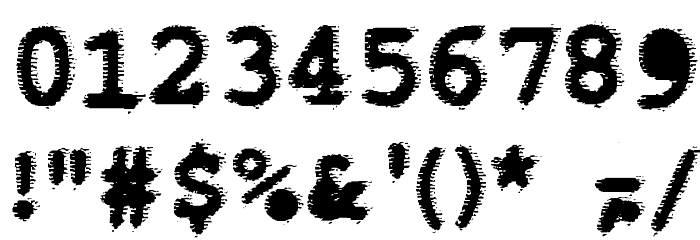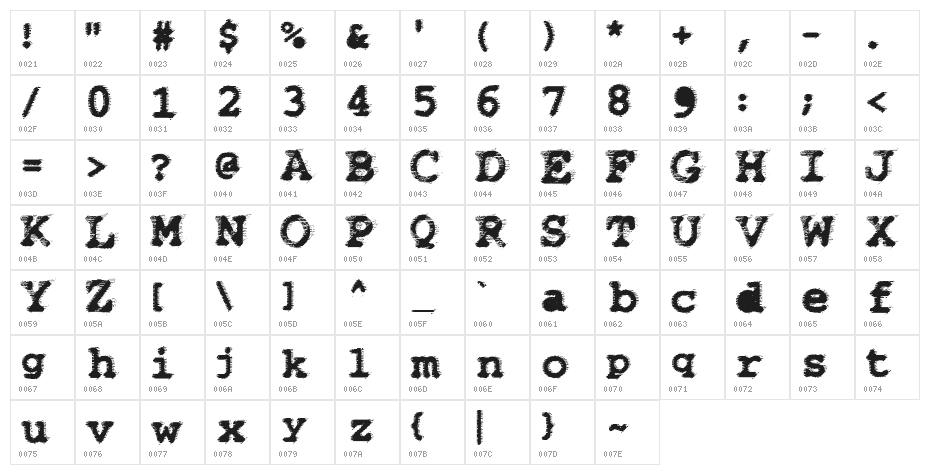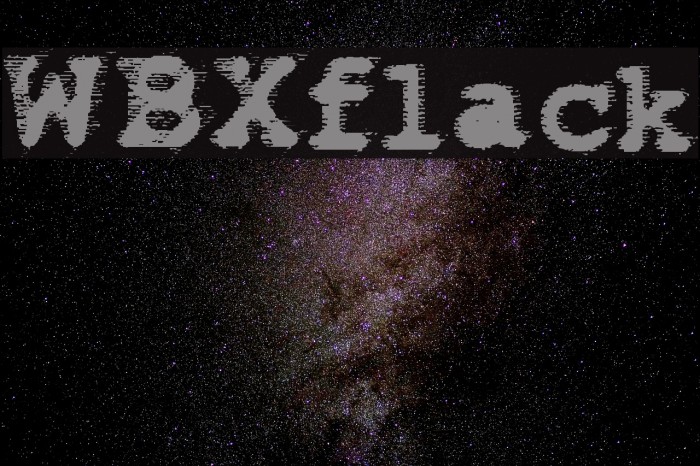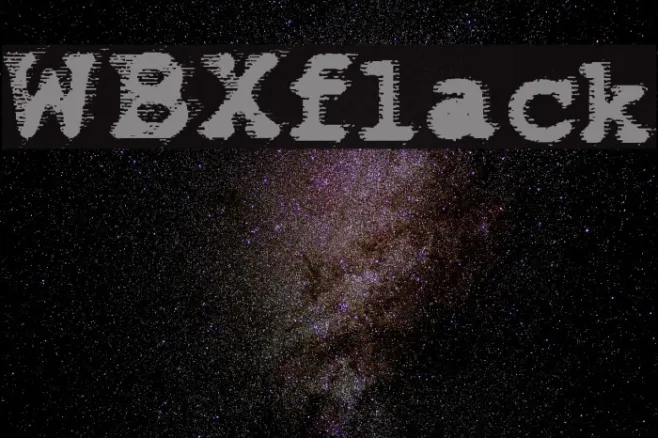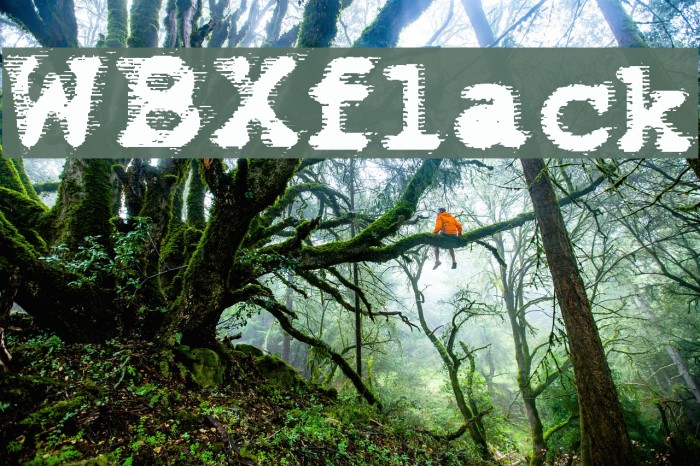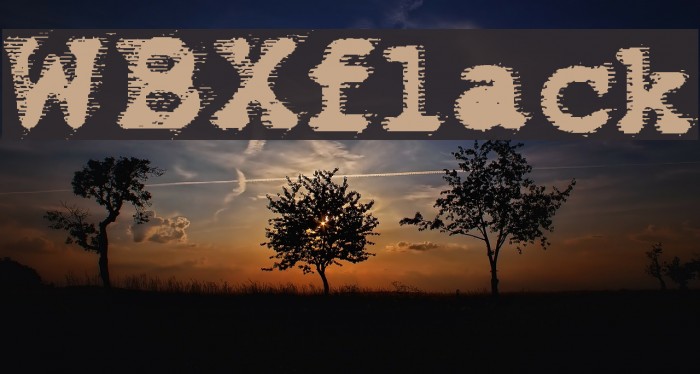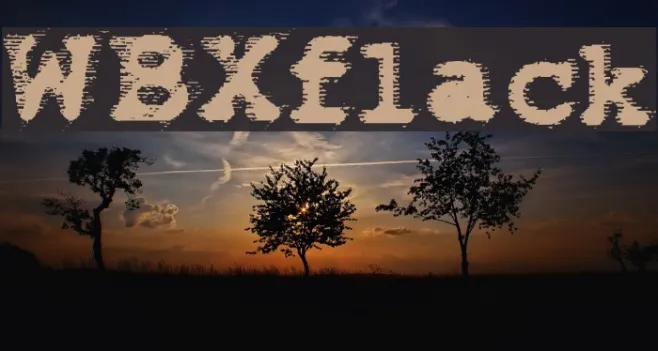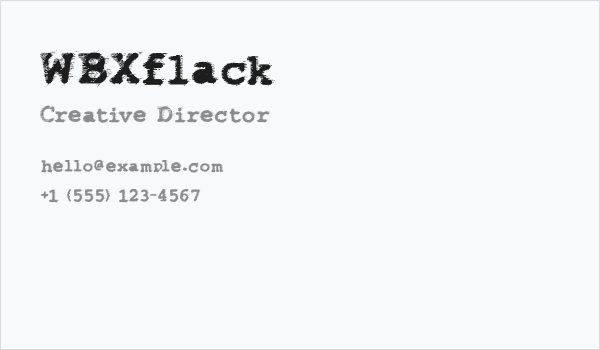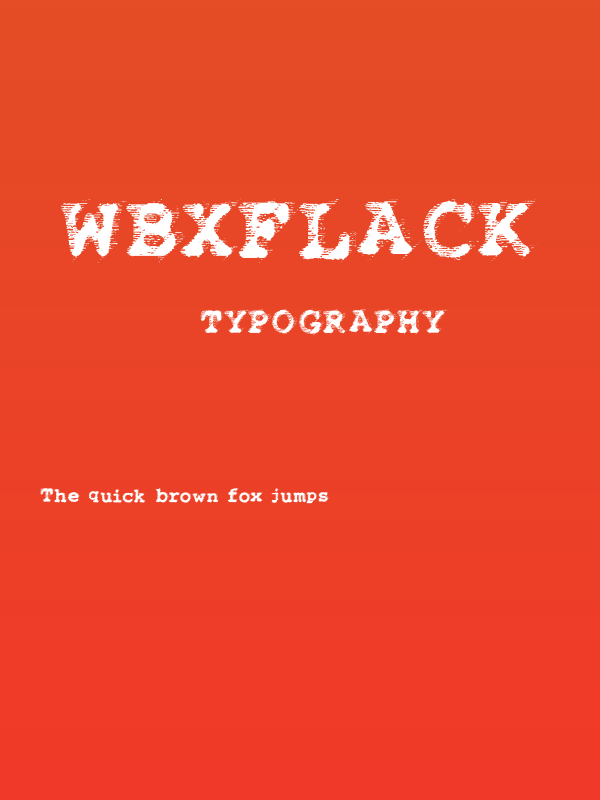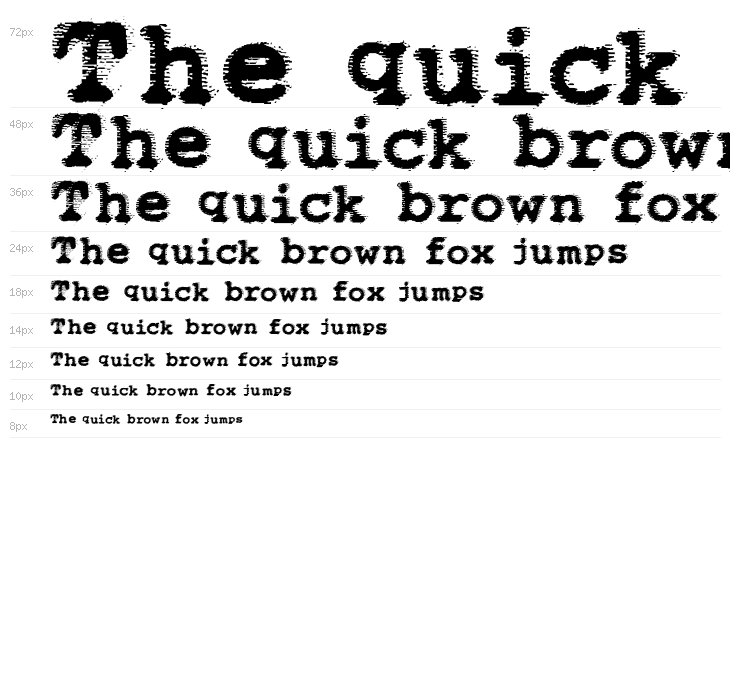
WBXflack Font
WBXflack Description
This font features a bold and distressed style, with a unique texture that gives it a vintage, worn appearance. The characters are heavily weighted, with a rough, uneven edge that adds a sense of movement and energy. The uppercase and lowercase letters maintain a consistent style, while the numerals and special characters complement the overall aesthetic. The font's design is reminiscent of old printing techniques, making it ideal for projects that require a retro or industrial feel.